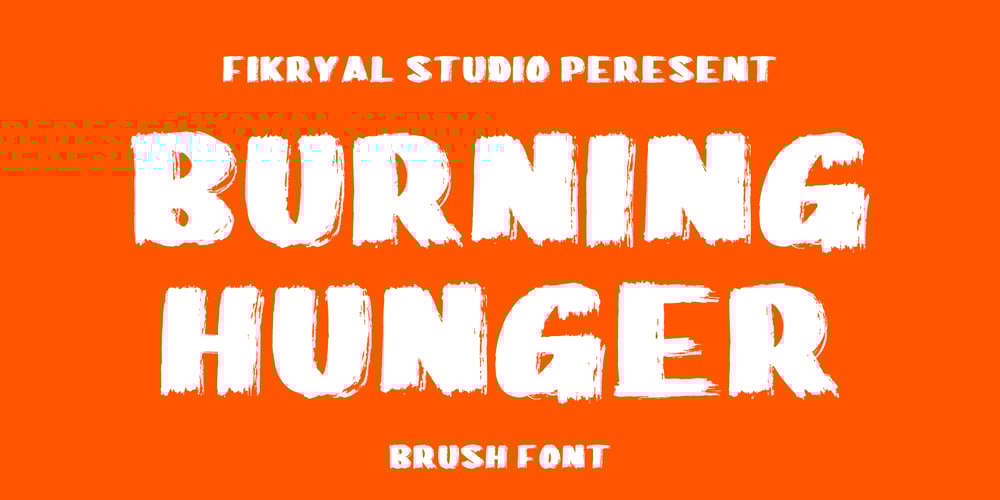
Burning Hunger Font Family was designed by Muhammad Fikry and published by Fikryal. Burning Hunger contains 1 styles and family package options. Make a bold statement with Burning Hunger, a brush display font that is bold and all caps. Inspired by dynamic brush strokes, this font is perfect for posters, banners, headlines, branding, and social media. With its artistic brush texture, Burning Hunger delivers a strong and passionate visual impact in every design.If you have any questions please don’t hesitate to contact mefollow my Instagram: fkryallThank you